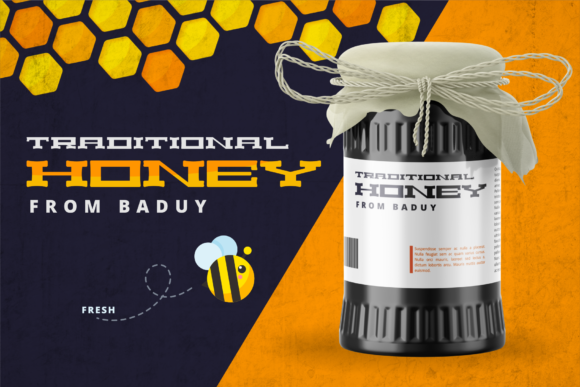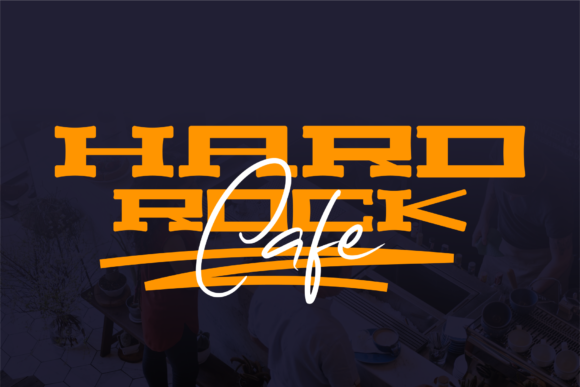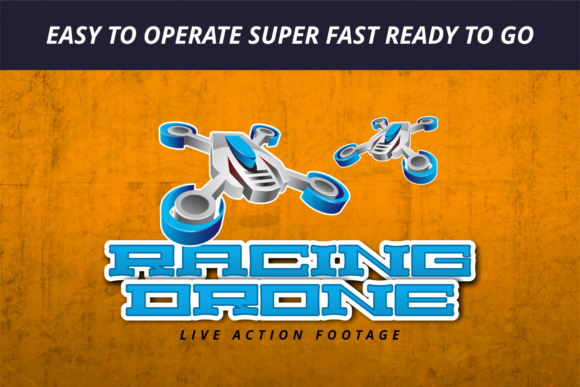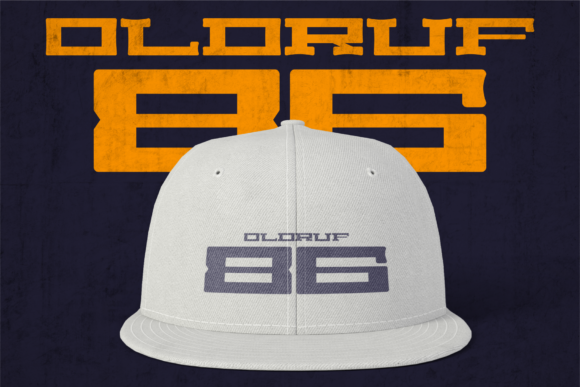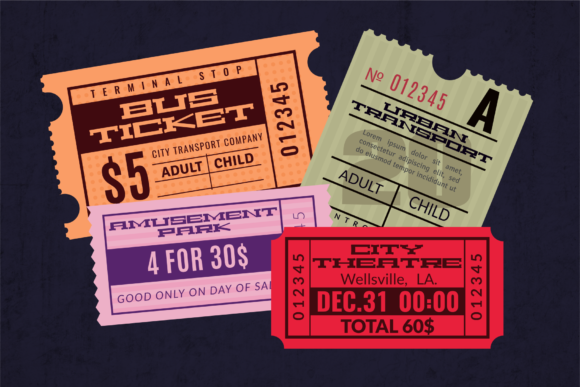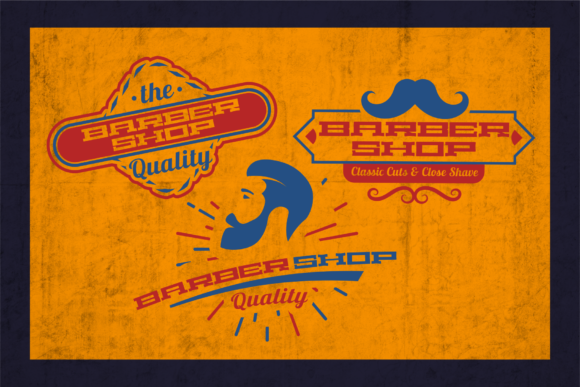
Introduction to Hipers Font
Have you ever stared at a blank canvas, waiting for the perfect spark to ignite your next creative project? As a designer, we’ve all been there – searching for that one elusive element that brings our vision to life. For some, it’s the perfect color palette; for others, it’s a unique typography that sets the tone for their entire design. For me, it’s the Hipers Font – a cool, assertive, and vintage styled display font that has become my go-to design resource.
With its perfect blend of casualness and sophistication, Hipers Font is the ideal choice for designers looking to add a touch of personality to their work. Whether you’re working on a high-quality logo design, a free download for a client, or a complex layout with a transparent background, Hipers Font is sure to deliver.
- High-quality, professional design suitable for various creative projects
- Includes a wide range of characters, including uppercase and lowercase letters, numbers, and punctuation
- Designed to be versatile and adaptable for use in logos, headings, and body text
Honest Review: Hipers Font
As a designer, I’m always on the lookout for high-quality design resources that can elevate my creative projects. Recently, I stumbled upon Hipers Font, and I’m excited to share my thoughts on this font.
- ✨ High-quality design: Hipers Font has a sleek, modern look that’s perfect for contemporary designs.
- ✨ Versatile: This font is great for a wide range of creative projects, from logos to brochures.
- ⚠️ Limited customization options: While the font itself is high-quality, I found the customization options to be somewhat limited.
- ⚠️ Not suitable for transparent backgrounds: Due to the font’s design, it may not be the best choice for designs that require a transparent background.
Overall, I’m impressed with Hipers Font, and I think it’s a valuable addition to any designer’s toolkit. While it may not be perfect, its strengths far outweigh its limitations, making it a great choice for designers working on high-quality creative projects.
Hipers Font is suitable for a wide range of creative projects, including logos, business cards, and marketing materials. Its high-quality design makes it an excellent choice for presentations, posters, and social media graphics.
Montserrat is similar to Hipers Font in its modern and sleek design, but it has a more geometric feel to it. It’s a great alternative for designers who want a high-quality font without the need for a premium purchase.